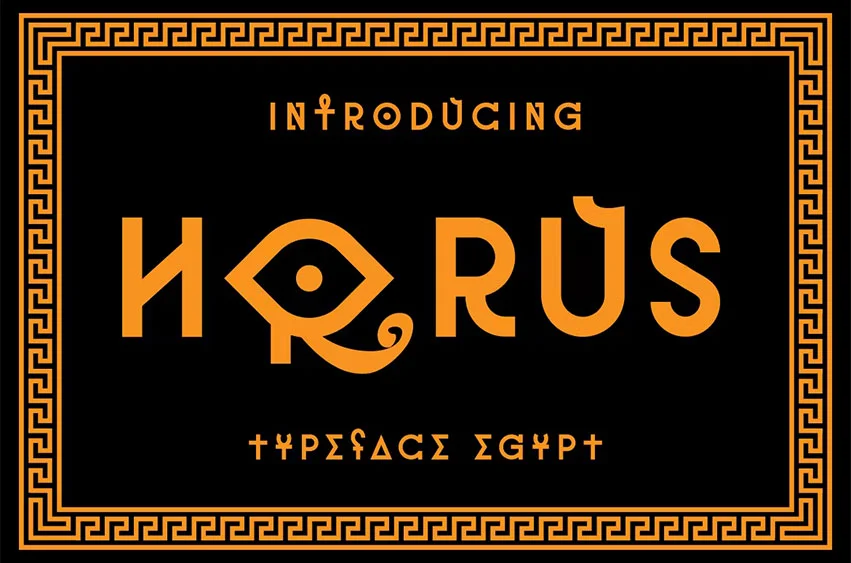
Horus Font Egypt Style Font is an unique font with egyptian hieroglyph style. So perfect for you who needs a typeface for logo designs, magazine, social media, brochure, and many more.
- Some Hieroglyph symbol